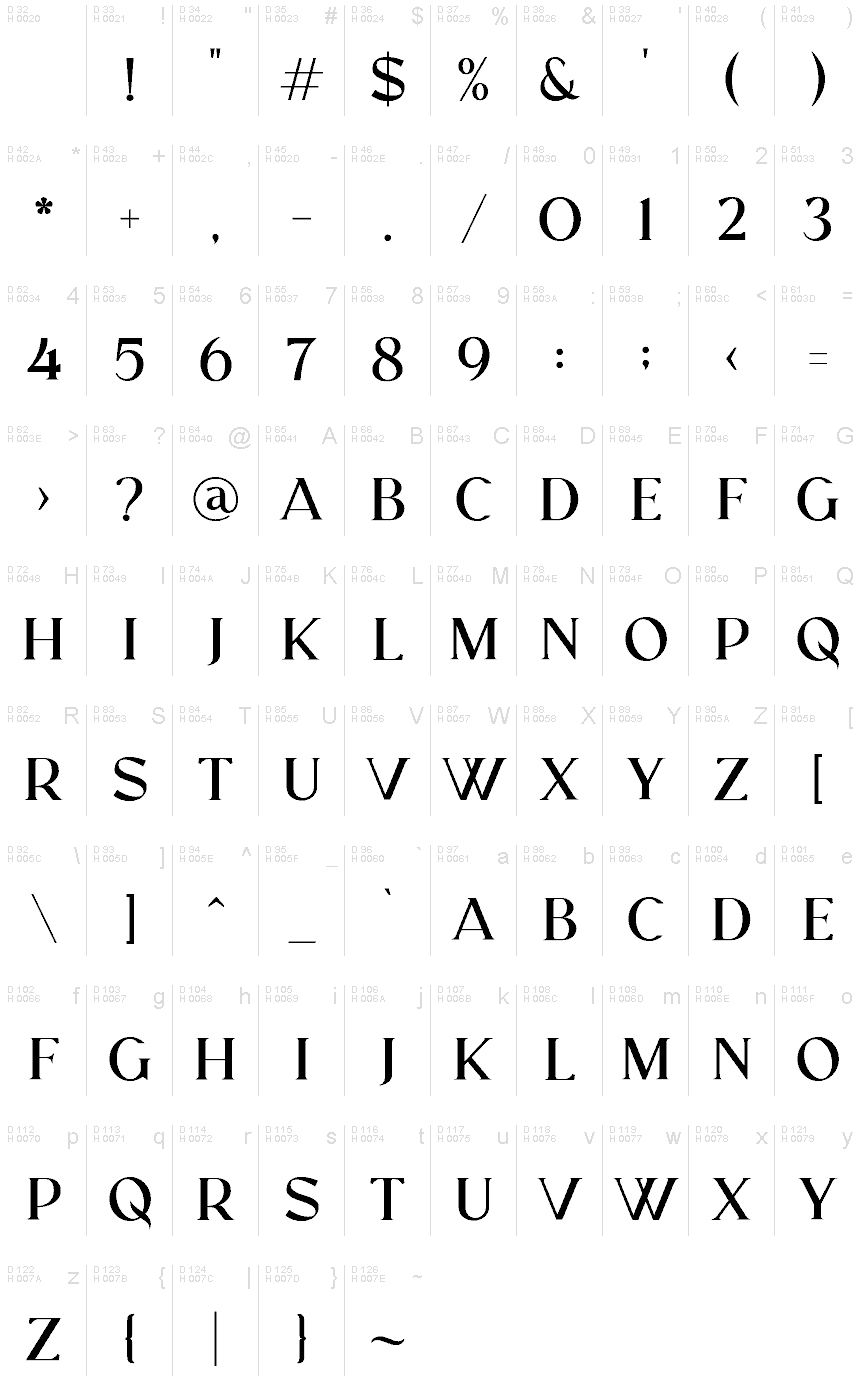
RELIGATH
Religath font by Enxyclo Studio is a classic serif font built on an elegant style. The professional typeface has thin stems, prominent strokes, and contrasting lines with pointed endings. Beautiful typography work awaits as Religath lets you fix attention by skillfully structuring headlines and passages in paragraphs using ordinary or capital letterforms.